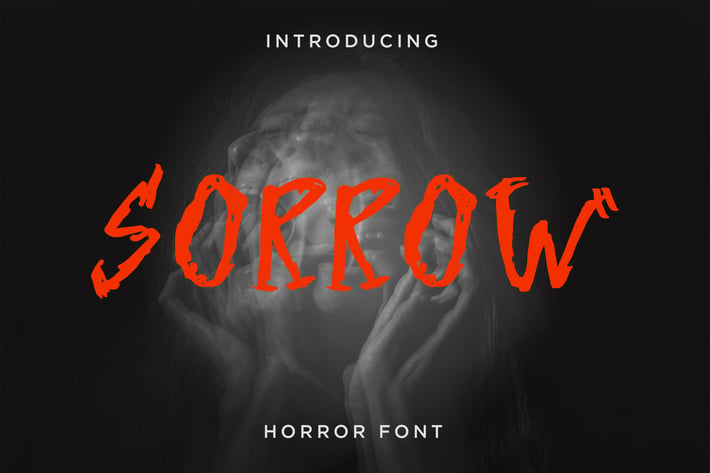
Sorrow - Horror Font
Sorrow - Horror Font is a Decorative Font with a scary, horror, mystery experience.
This font is best for any product (physical or digital) that have horror, scary, gothic theme.